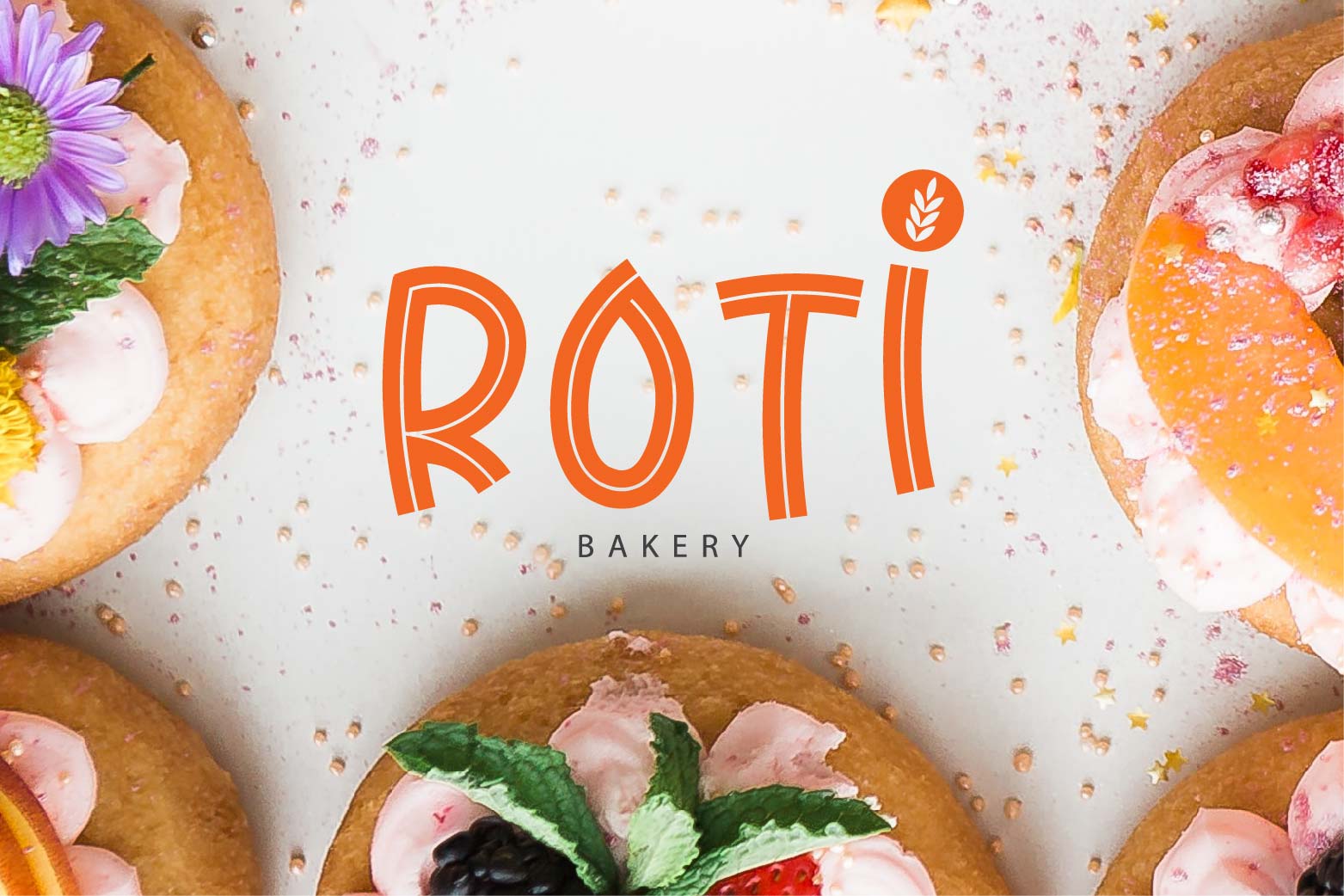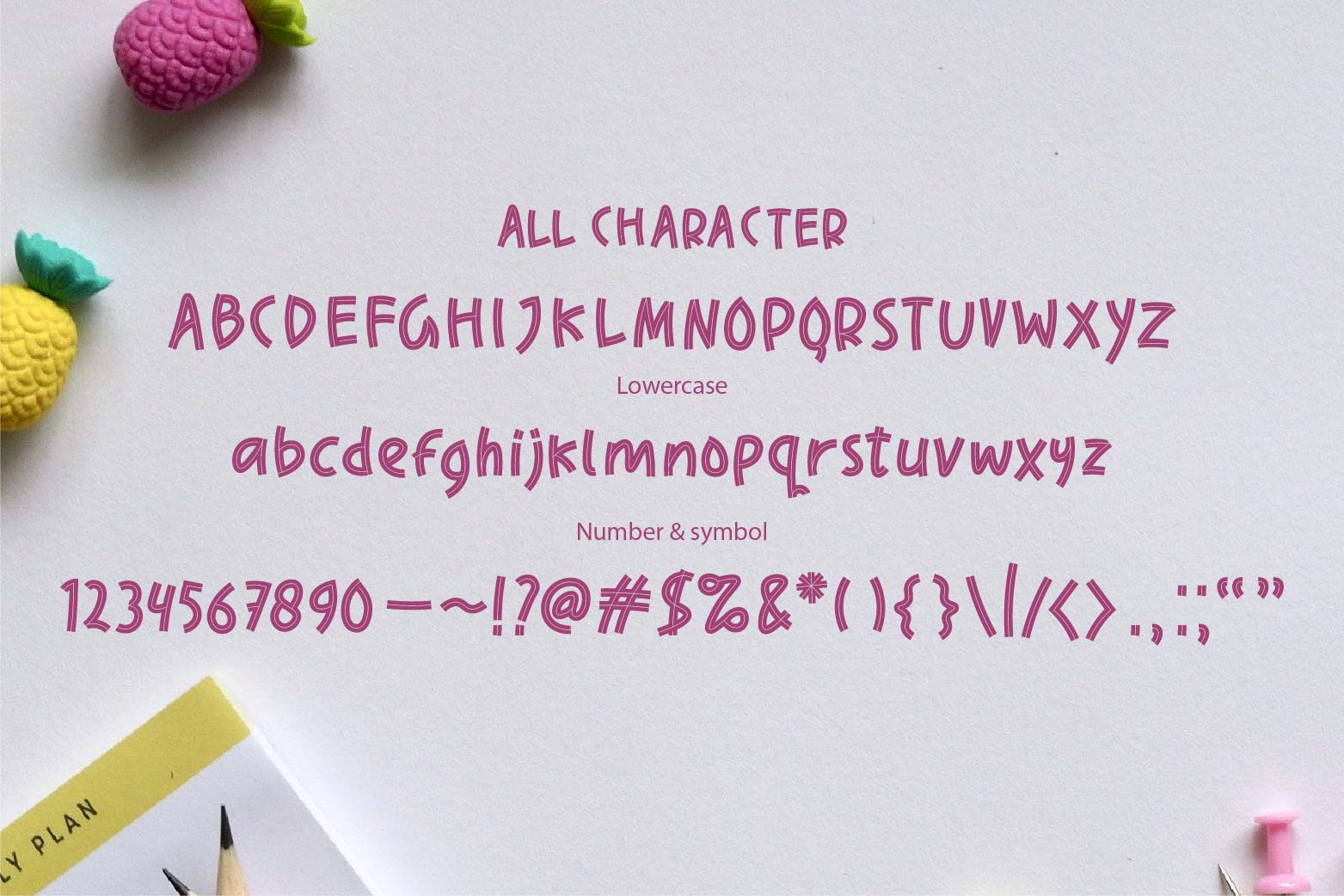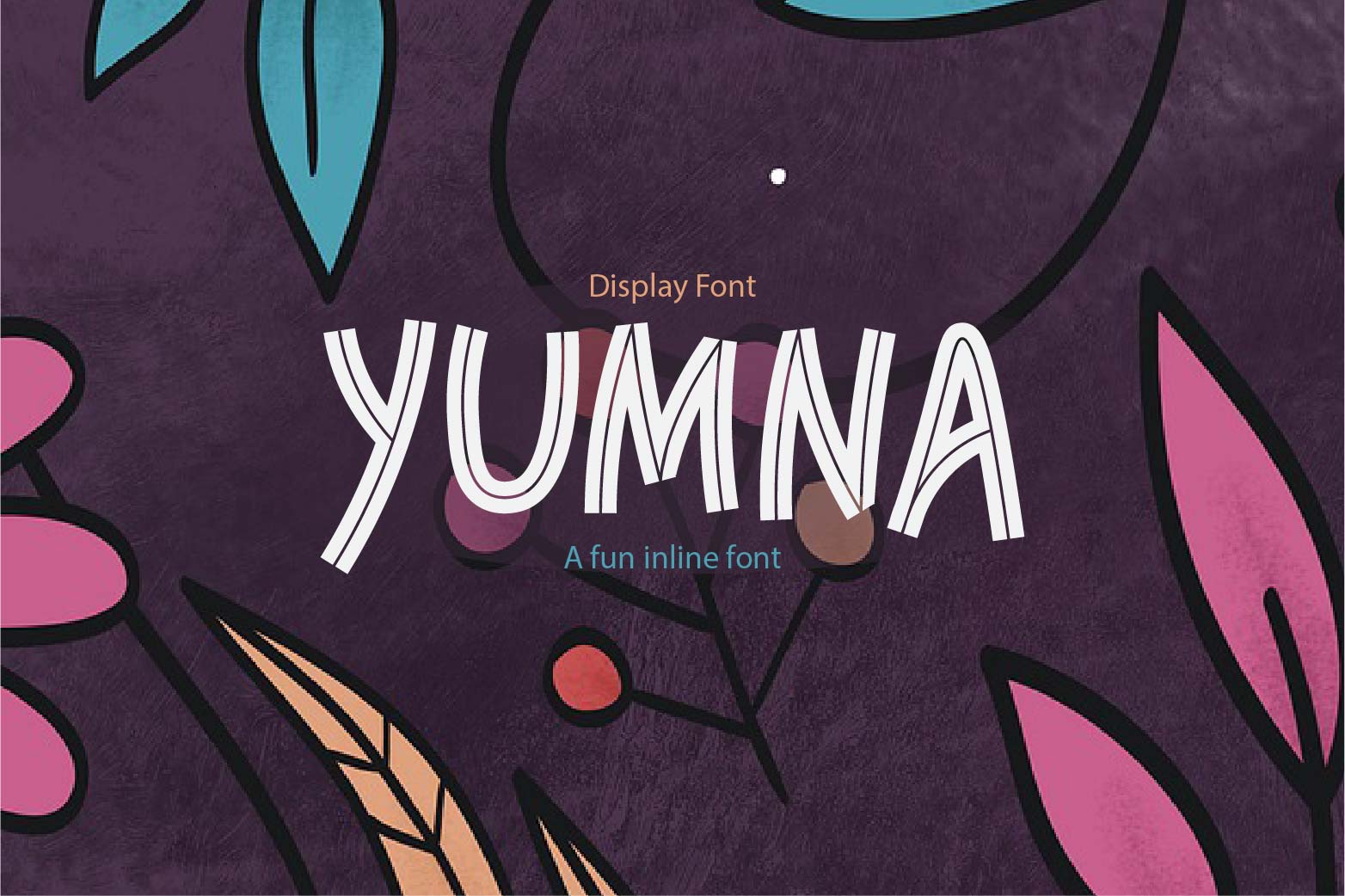
Yumna Font
Yumna Display Font
It’s an incredibly unique display font. Masterfully designed to become a true favorite, this font has the potential to bring each of your creative ideas to the highest level!